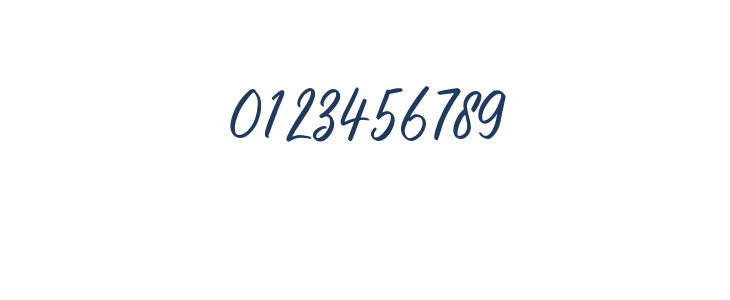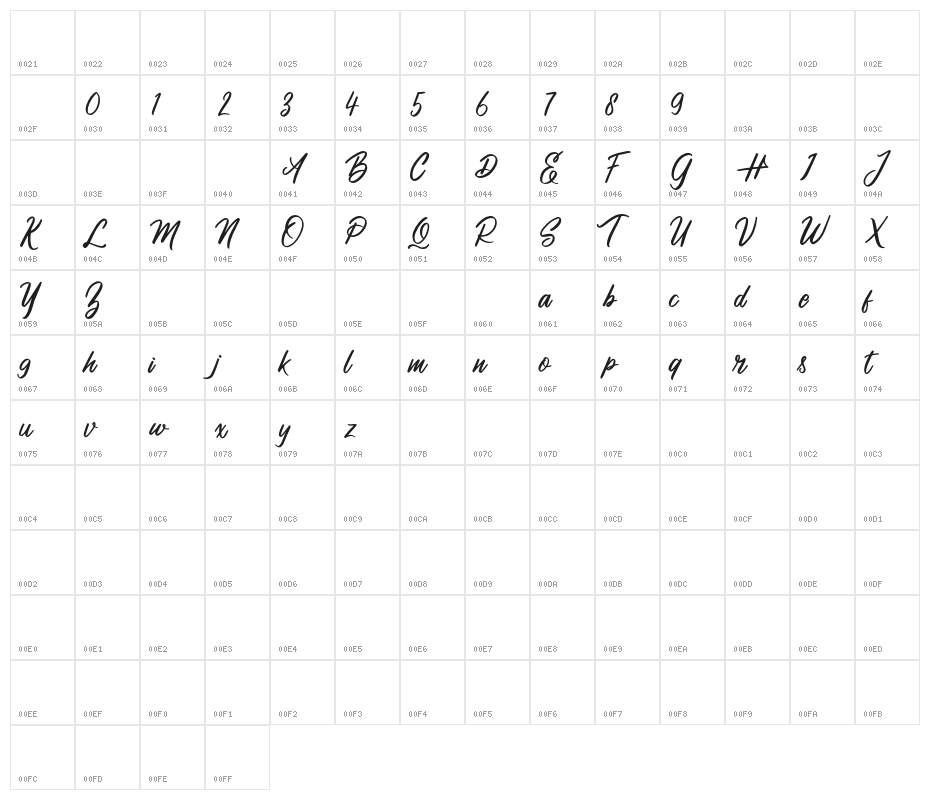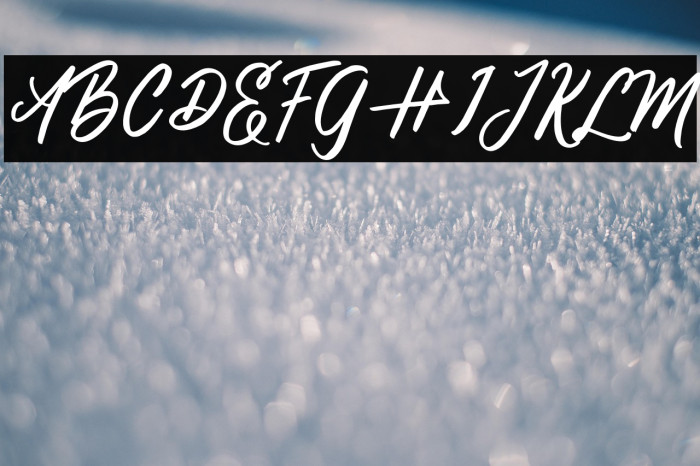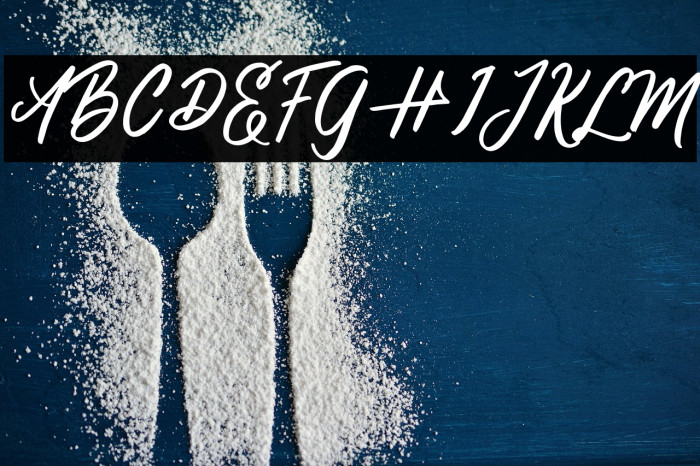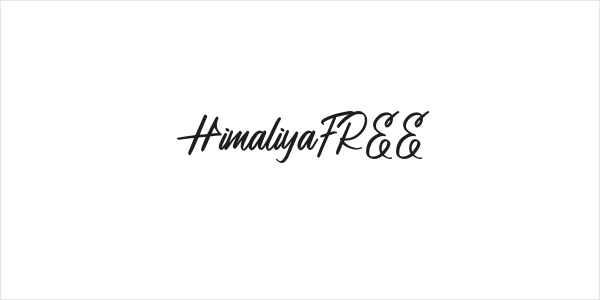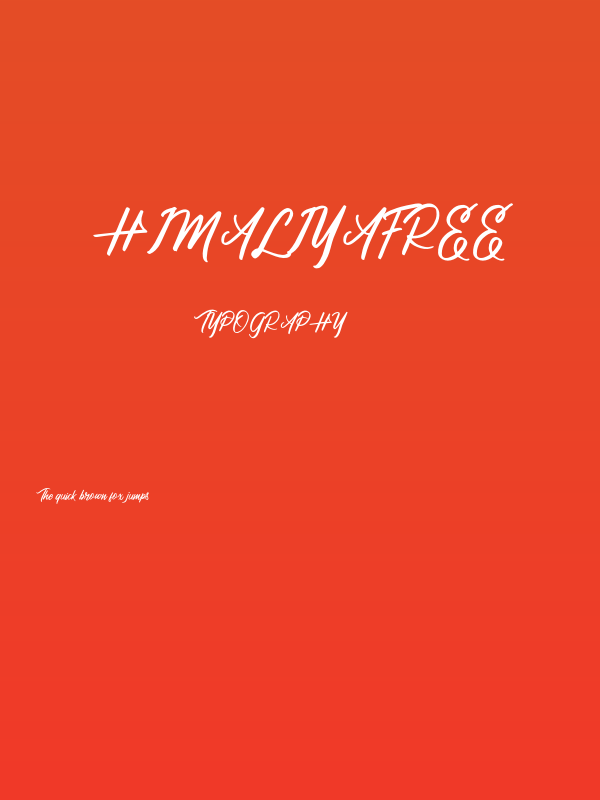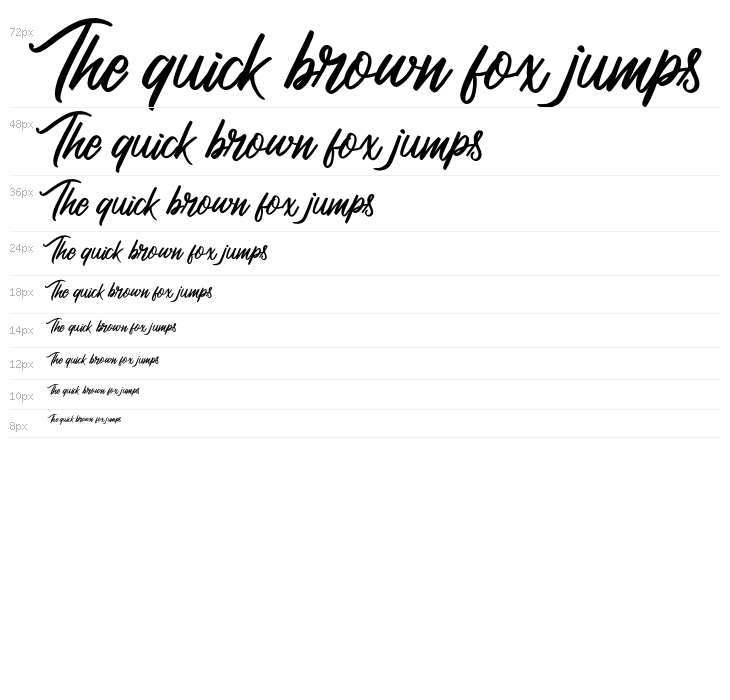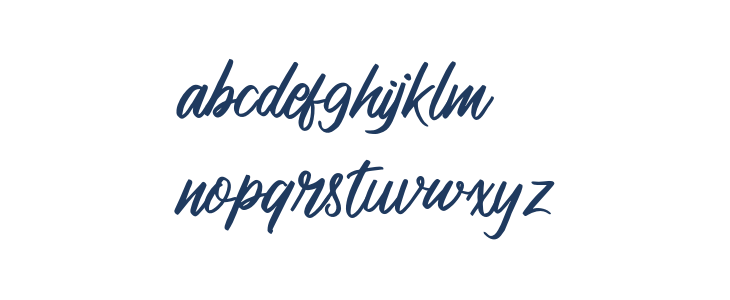
HimaliyaFREE Font
HimaliyaFREE Description
This font exudes a dynamic and elegant script style, characterized by its fluid and cursive letterforms. The uppercase letters are bold and sweeping, with a slight slant that adds a sense of movement and grace. The lowercase letters maintain a consistent flow, complementing the uppercase with their rounded and connected strokes. The numbers are designed with the same cursive flair, ensuring a cohesive look across all characters. The special characters are integrated seamlessly, maintaining the overall aesthetic of the font. This script style is both sophisticated and approachable, making it versatile for various design needs.
| Overall Style | Elegant, Dynamic |
| Proposed Projects | Ideal for wedding invitations, branding projects, greeting cards, and elegant packaging designs. |